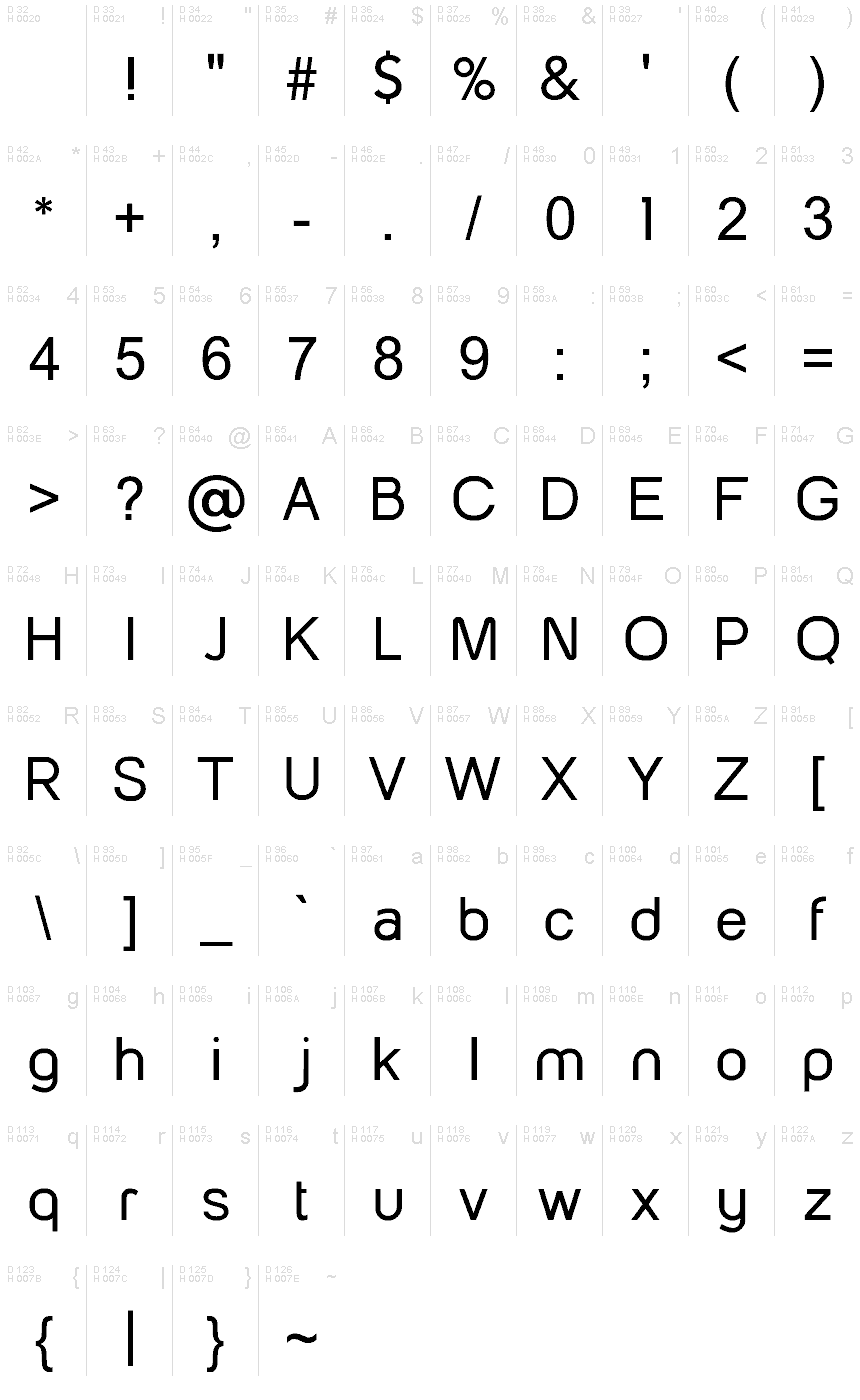
THE FABRICANT Regular
The Fabricant font by UI Creative is a neutral, clean sans serif with modern sensibilities and geometric roots. Its simplicity allows it to fit in various contemporary applications where it doesn’t overshadow other design elements. The legible typeface fully interacts with the readers enhancing their experience smoothly, resulting in attracting plenty of attention to the design as a whole.
This free sans serif font works in posters, webpages, print advertising, magazines, books covers/titles/interiors, B2C newsletters and presentations (including slides). Other uses where it can be part of astonishing results include packaging/labeling (beauty products or fancy drinks), apps/interfaces –both game and non-game– or animations.